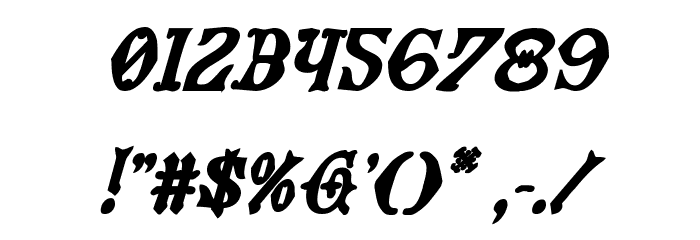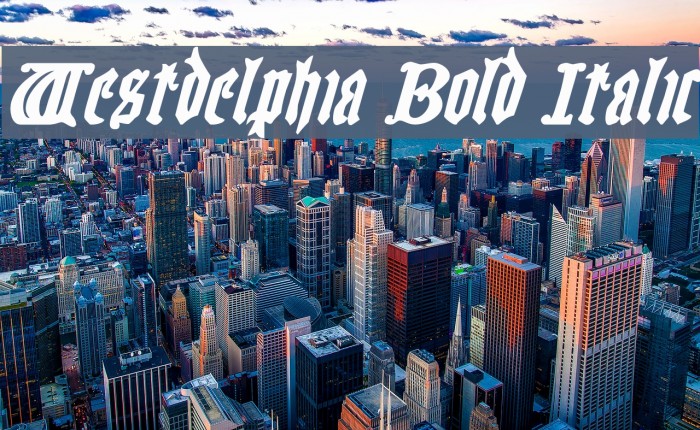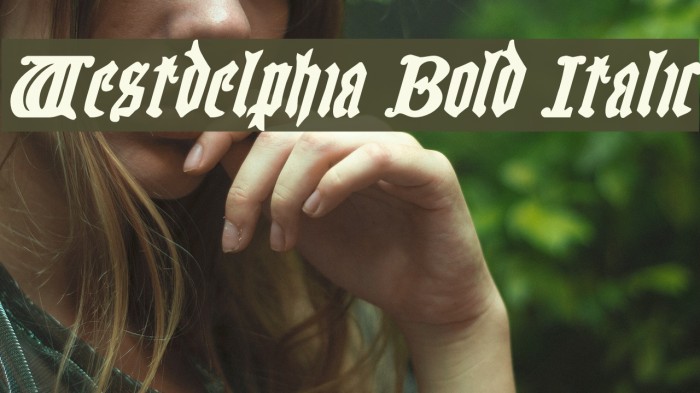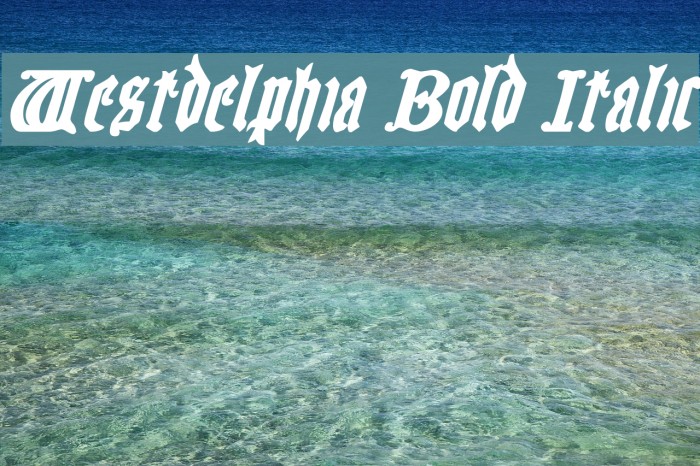
Westdelphia Bold Italic Font
This font features a bold and italicized style with a distinct blackletter influence. The characters are ornate, with sharp angles and dramatic curves that give it a medieval and gothic appearance. The uppercase letters are particularly elaborate, with flourishes that extend beyond the baseline and cap height. The lowercase letters maintain a consistent style, with a slightly condensed form that enhances readability. Numerals and special characters are designed to match the overall aesthetic, ensuring a cohesive look across all text elements. The font's bold weight and italic slant add to its striking presence, making it ideal for attention-grabbing designs.
A bold, italicized blackletter-style font with ornate, gothic elements.
- Proposed Projects: Suitable for projects requiring a medieval or gothic theme, such as fantasy book covers, themed event invitations, or historical signage.
- Category: Blackletter
- Overall Style: Gothic
- Use Case: Headlines, Logos, Decorative text